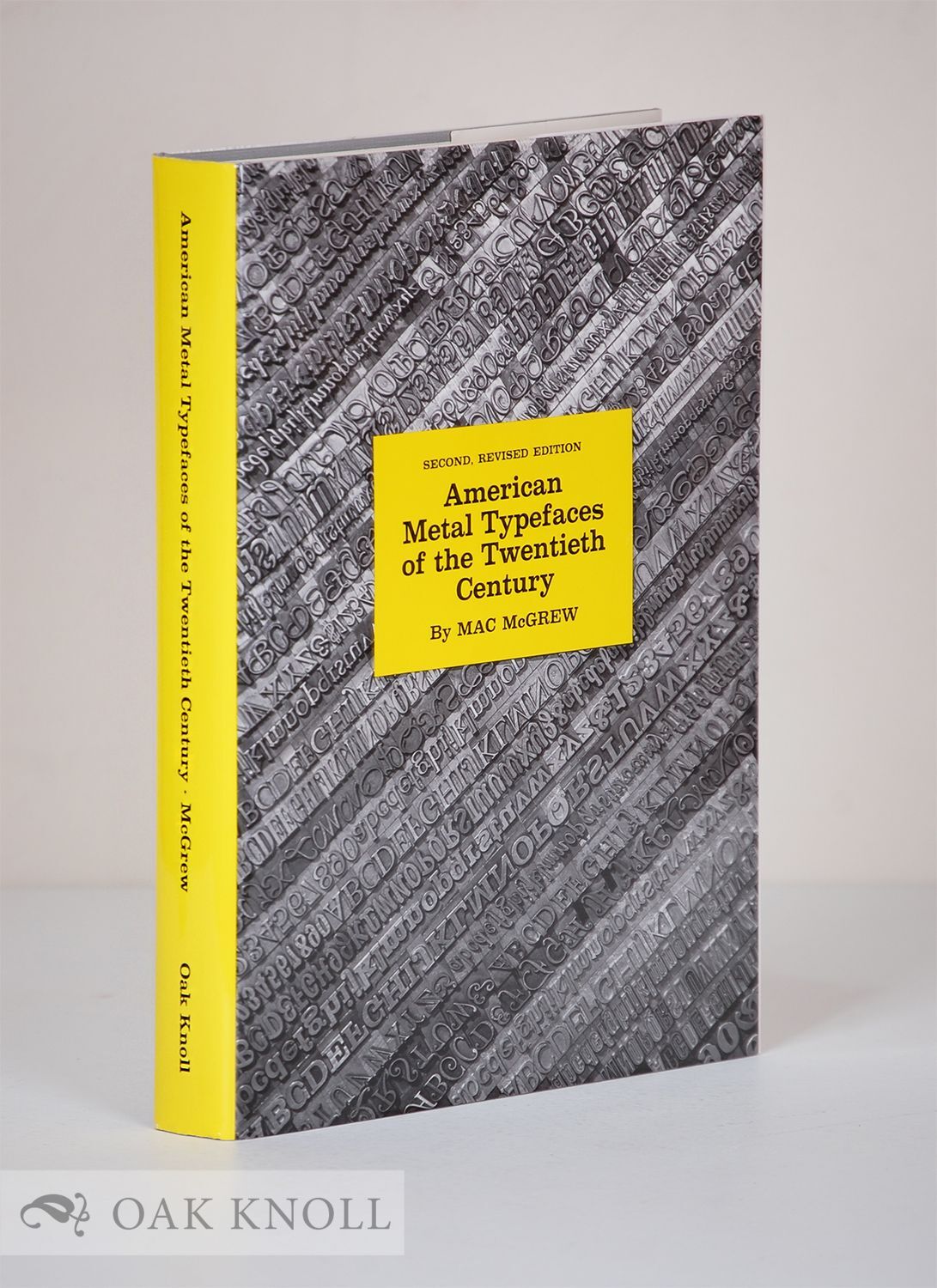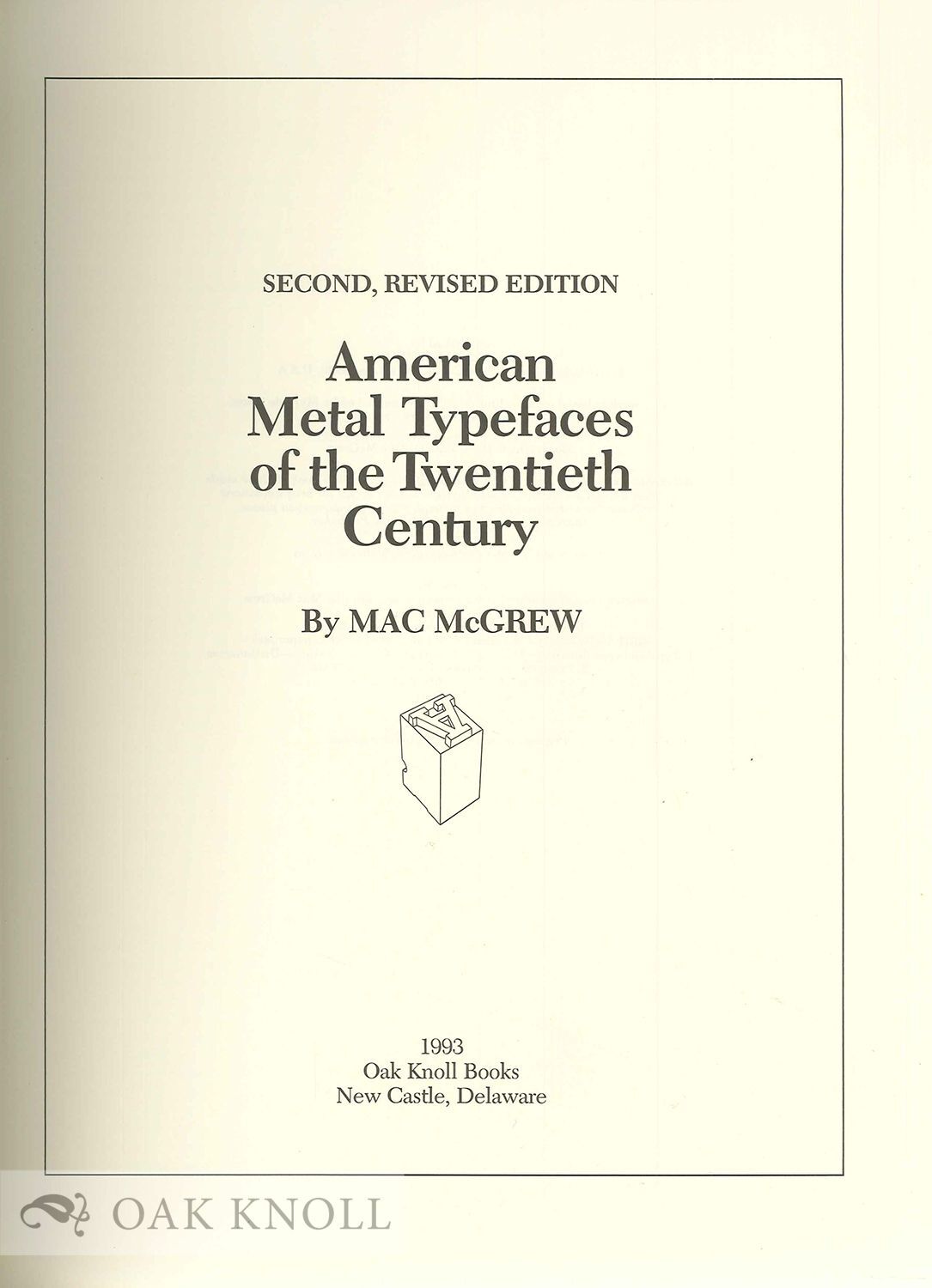
AMERICAN METAL TYPEFACES OF THE TWENTIETH CENTURY.
Discover 1,600 classical as well as bizarre typefaces in one of the most massive tributes to the history of printing and metal types. This edition of American Metal Typefaces of the Twentieth Century contains 300 more typefaces in a clean, attractive format. This well-organized work captures the rapidly disappearing traditions and legacy that metal-type printing has left behind. Much of this information has been lost by the passage of time, and its preservation in this book is essential for anyone studying typefaces, typography, and its history.
Structured by alphabetically-listed type families, these typefaces and their variant forms are shown in full alphabets - upper and lower case with numerals and punctuation. The specimens themselves are cleanly reproduced from metal types for maximum clarity. The text is detailed and informative, not only identifying the designer, foundry, and date of issue but also the range of sizes and closely similar designs by other founders. The history, aims, and purpose behind many of these typefaces are also described, along with production problems encountered and individual characteristics. Additional information includes extensive appendices listing common pseudonyms, popular imports, and antique faces, plus American Typefounders, Monotype, and Ludlow series numbers. The indexes provide easy access to typeface names as well as names of designers, punch cutters, matrix engravers, and other tradesman.